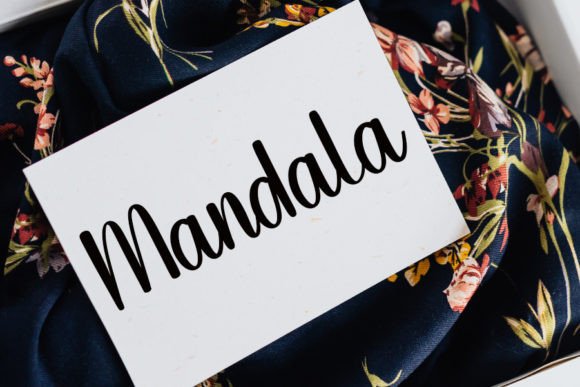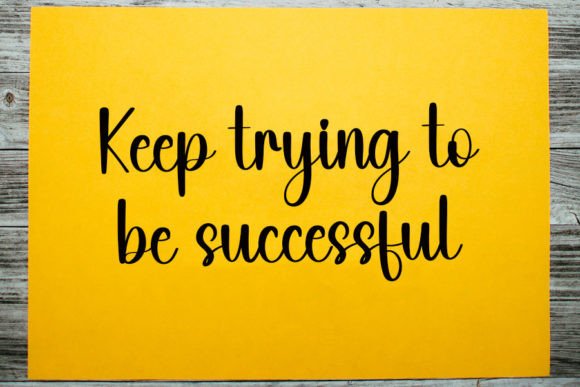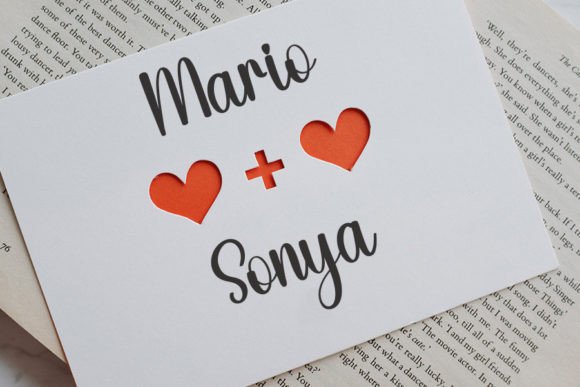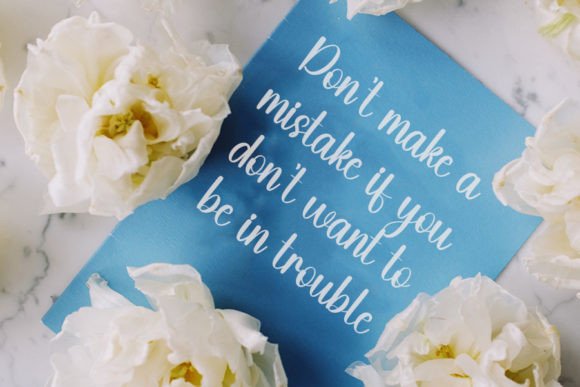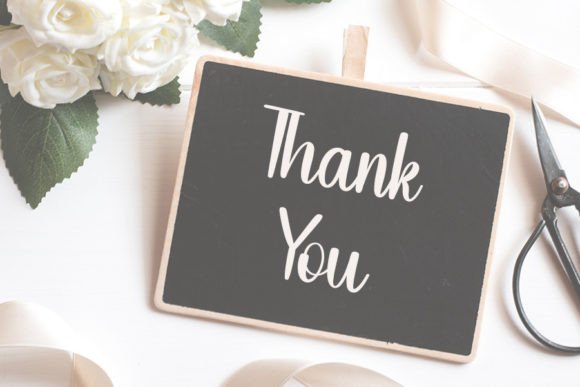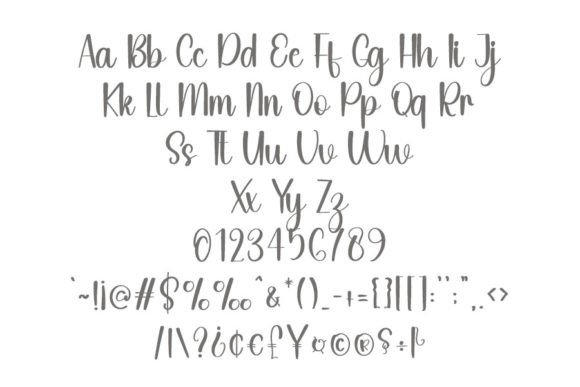
Backend Font
Backend: A Stylish Handwritten Font with Classic Elegance
If you’re searching for a way to give your designs a polished, elegant touch, Backend is the font for you. This stylish handwritten font is inspired by timeless classic calligraphy and has been carefully crafted to bring a sense of sophistication and charm to all kinds of design work.
Whether you’re designing logos, invitations, or website headers, Backend offers the perfect balance between formality and creativity. It’s an ideal choice for professionals, creatives, and anyone who appreciates refined design.
Classic Calligraphy Meets Contemporary Style
Backend stands out with its smooth strokes, graceful curves, and beautifully varied letterforms. It blends old-world calligraphy aesthetics with modern trends, making it a flexible font for both traditional and forward-thinking projects.
This stylish handwritten font is especially well-suited for:
• Wedding invitations and event stationery
• Elegant logos and personal branding
• Quotes and social media graphics
• Product packaging and labels
• Book covers and artistic headers
• Personalized gifts and digital downloads
Its flowing lines and natural rhythm create visual harmony that enhances the beauty of your content.
Why Designers Love Backend
Backend isn’t just beautiful—it’s also highly functional. Designed with readability and aesthetic value in mind, this font looks stunning at both large display sizes and smaller text elements. Whether it’s for digital use or print, Backend adapts flawlessly.
• Inspired by timeless calligraphy styles
• Balanced character spacing for visual flow
• Easy to pair with serif or sans-serif fonts
• Works well across various platforms and formats
• Enhances both formal and casual design projects
From branding projects to artistic compositions, this font consistently delivers a refined look and feel.
Ideal for Branding, Invitations, and Typography Art
Backend’s versatility makes it a favorite among designers working across multiple industries. Whether you’re crafting visuals for weddings or launching a boutique brand, Backend adds a level of grace and class that’s hard to ignore.
Great use cases include:
• Branding for high-end products
• Event design and stationery
• Quote posters and wall art
• Downloadable digital prints and planners
• Blog and website typography
Its timeless charm and elegant execution ensure your work stands out.
With its refined look and flexible design potential, Backend is more than just a font—it’s a creative tool. This stylish handwritten font brings depth, class, and personality to any project.